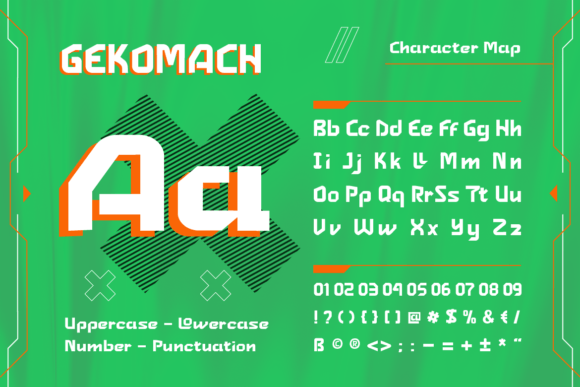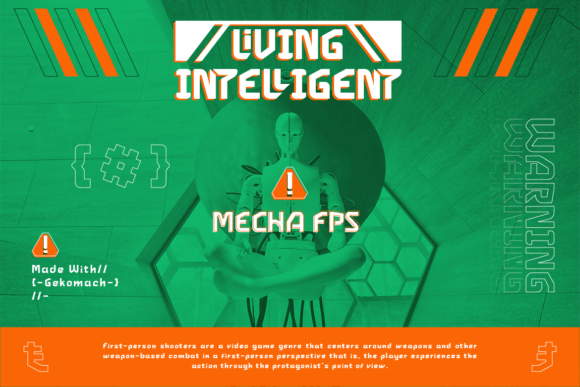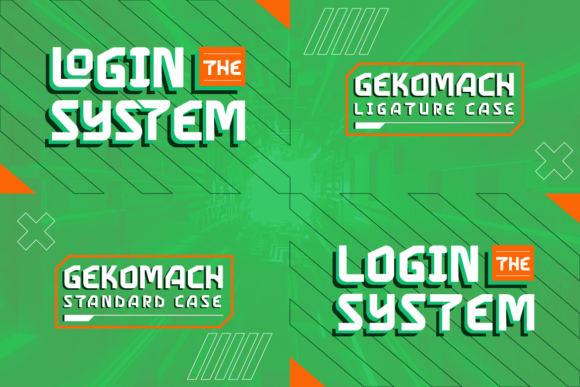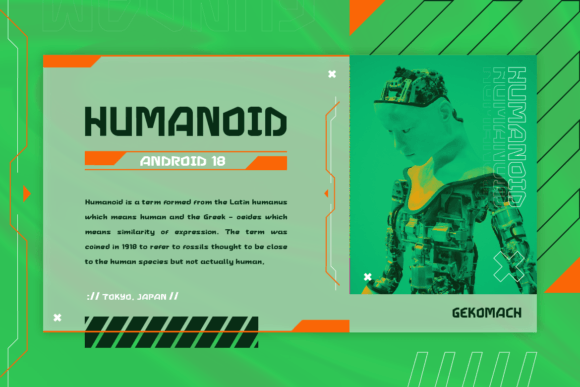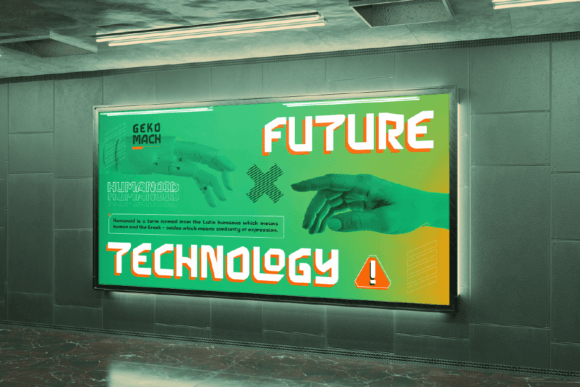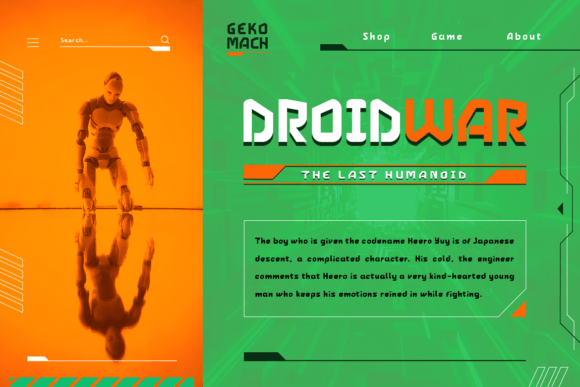
Gekomach Font: The Ultimate Modern Display Font for Innovative Designs
In the world of typography, fonts play a crucial role in making or breaking a design. With the ever-evolving design landscape, it’s essential to stay ahead of the curve with fresh and modern fonts that capture the attention of your audience. Introducing Gekomach Font, a cool and modern display font that’s perfect for designers and crafters looking to add an innovative touch to their projects.
The Futuristic, Robotic Style of Gekomach
Gekomach Font boasts a futuristic, robotic style that’s sure to make your designs stand out. Its sleek lines, sharp edges, and precision-crafted curves evoke a sense of innovation and cutting-edge technology. This font is ideal for designs that require a bold, modern aesthetic, such as tech-related projects, sci-fi inspired artwork, or futuristic branding.
Perfect for a Wide Range of Design Ideas
One of the best things about Gekomach Font is its versatility. Its unique style makes it suitable for a wide pool of design ideas, from:
• Logos and branding: Create a lasting impression with a bold, futuristic logo that sets your brand apart.
• Posters and flyers: Grab attention with eye-catching headlines and titles that showcase your message.
• Web design: Add a touch of innovation to your website’s typography and make it stand out.
• Social media graphics: Elevate your social media presence with stunning graphics that showcase your brand’s personality.
• Packaging design: Make your product stand out on store shelves with bold, attention-grabbing labels.
Key Features of Gekomach Font
So, what makes Gekomach Font so special? Here are some of its key features:
• Modern and futuristic style: Gekomach Font’s robotic style gives it a fresh, cutting-edge look that’s perfect for modern designs.
• Highly legible: Despite its futuristic style, Gekomach Font remains highly legible, even at smaller font sizes.
• Versatile: Use Gekomach Font for a wide range of design projects, from digital to print.
• Easily customizable: Experiment with different font sizes, colors, and styles to make Gekomach Font your own.
Tips for Using Gekomach Font
To get the most out of Gekomach Font, here are some tips to keep in mind:
• Use it sparingly: Gekomach Font’s bold style can be overwhelming if overused. Use it for headlines, titles, or key messages to create visual hierarchy.
• Pair it with complementary fonts: Combine Gekomach Font with simpler fonts to create contrast and add visual interest.
• Experiment with colors and textures: Try out different colors and textures to give Gekomach Font a unique look that fits your brand’s style.
Gekomach Font is a game-changer for designers and crafters looking to add a modern, innovative touch to their projects. Its futuristic, robotic style makes it perfect for a wide range of design ideas, from tech-related projects to sci-fi inspired artwork. With its versatility, legibility, and customizability, Gekomach Font is sure to become a staple in your font collection.
Get Ready to Elevate Your Designs with Gekomach Font